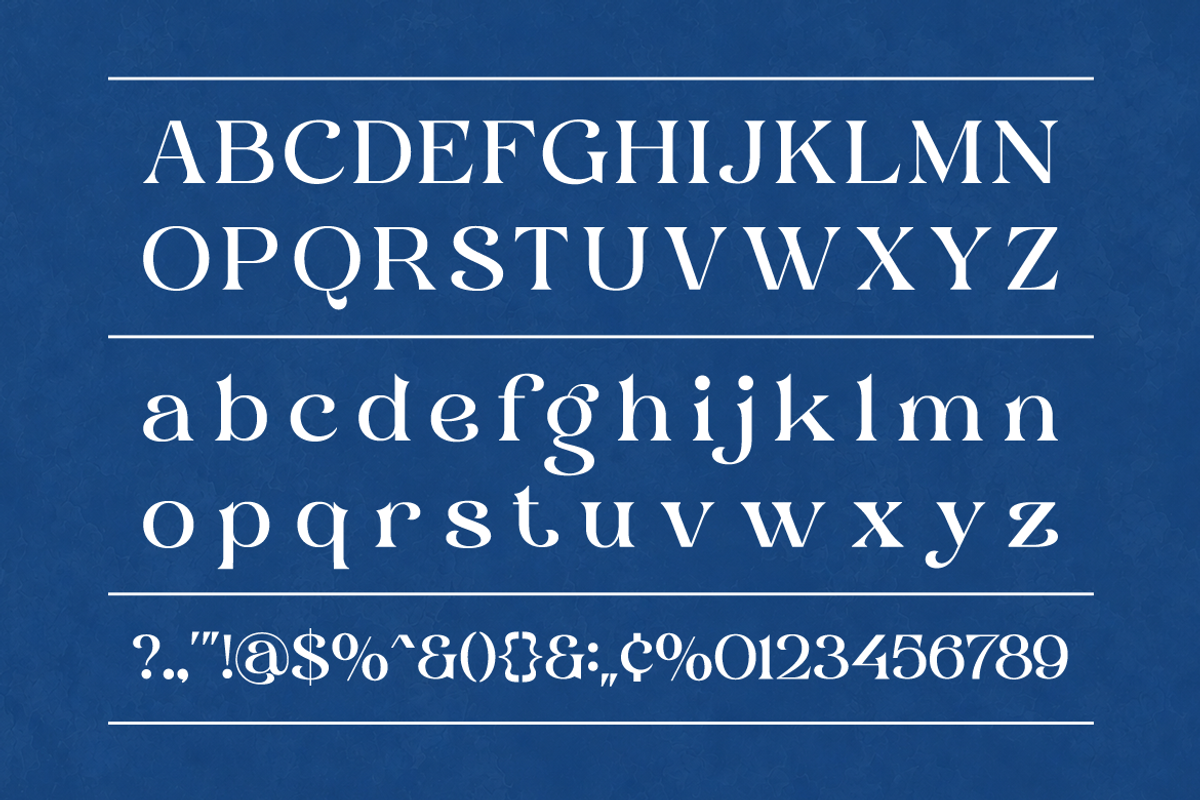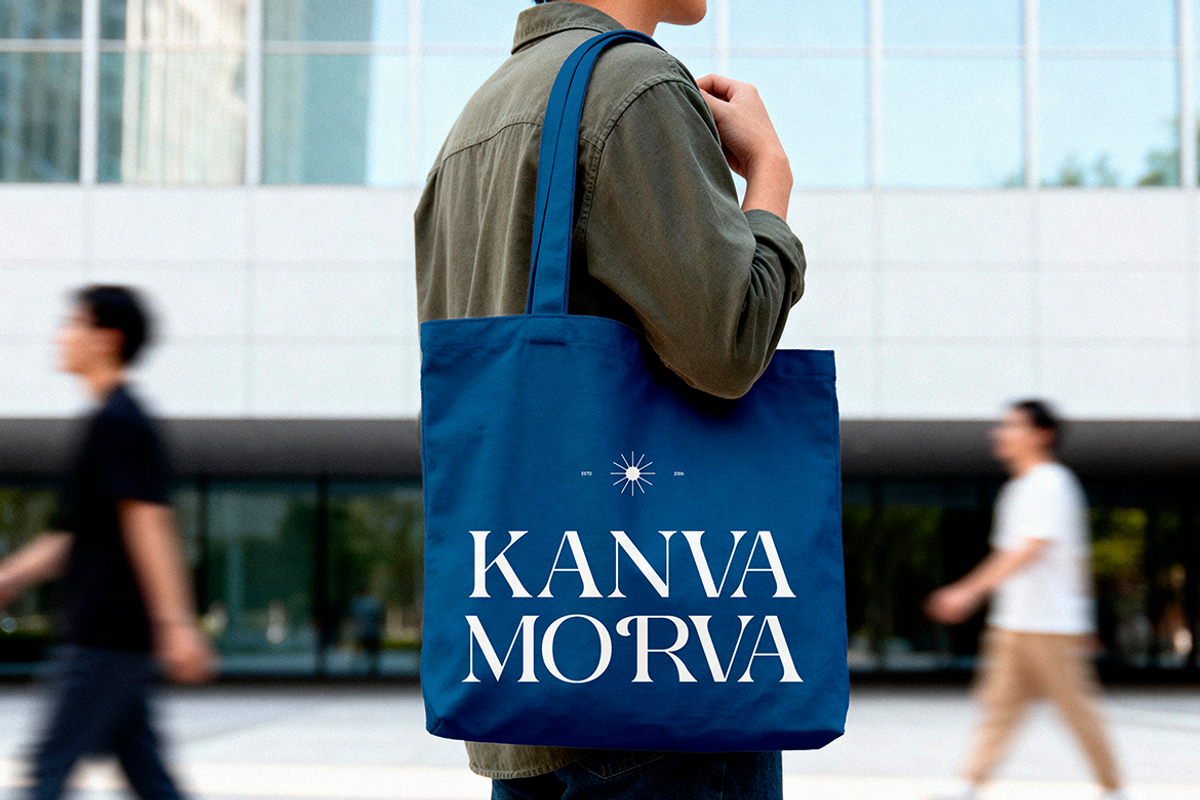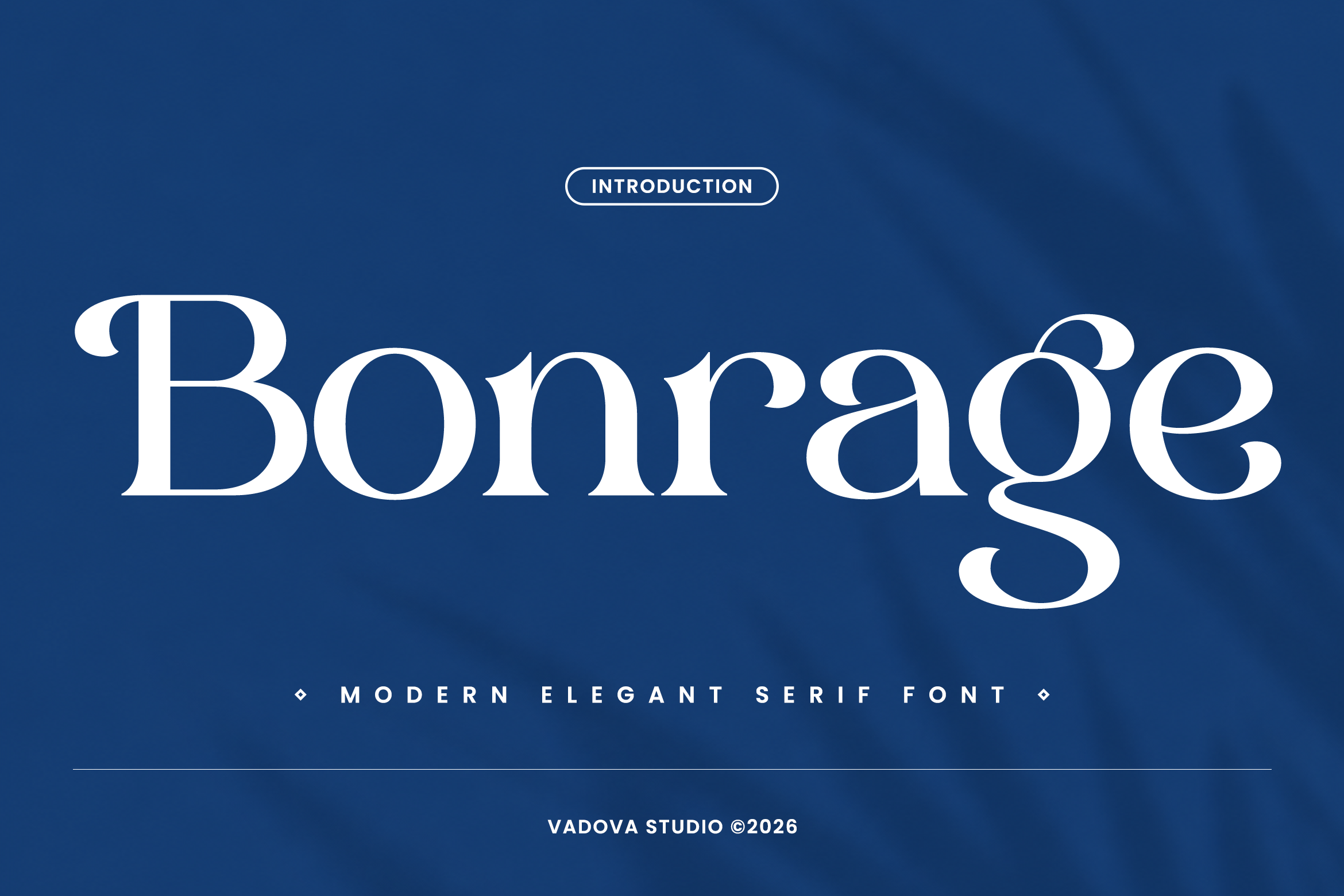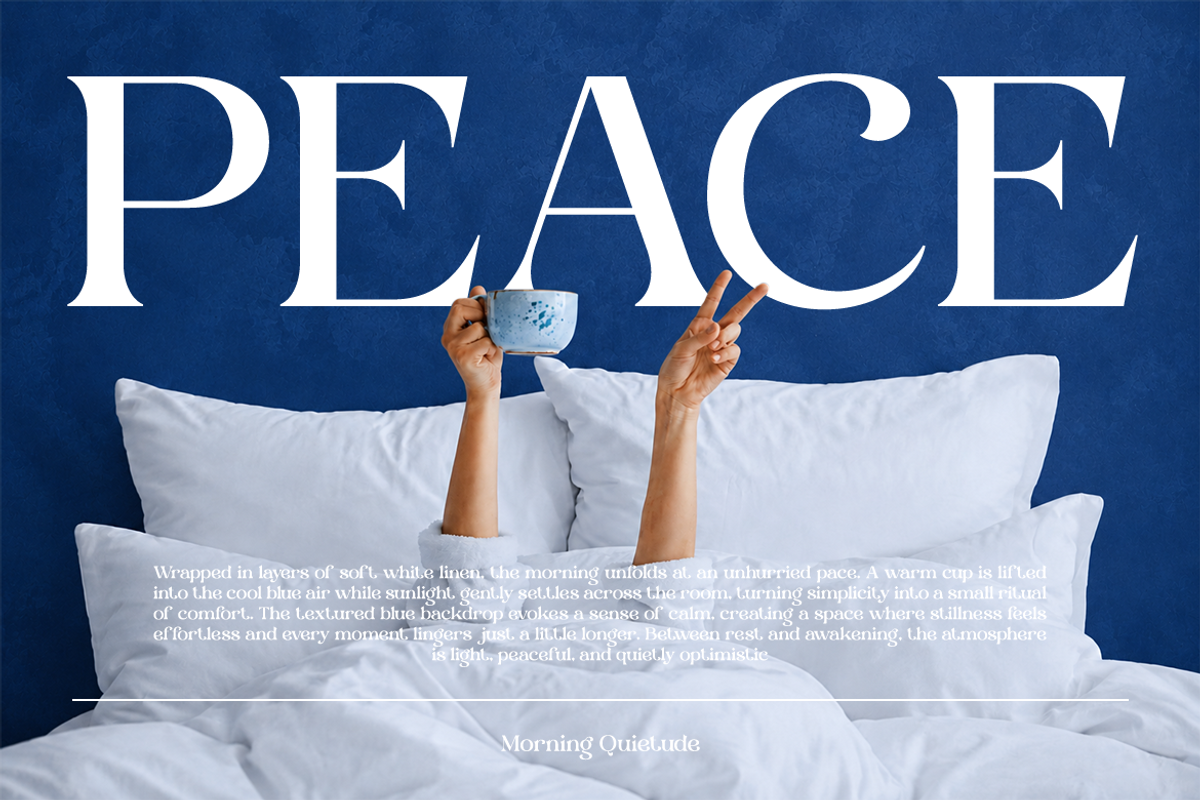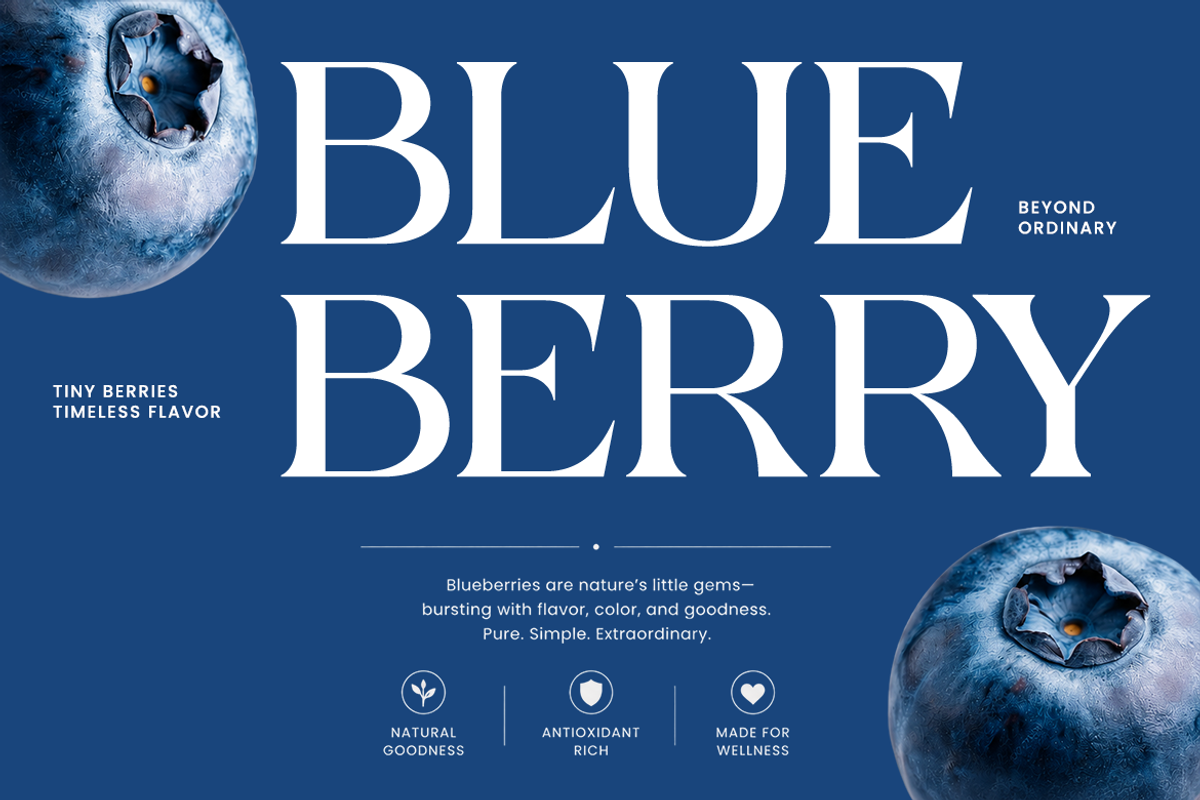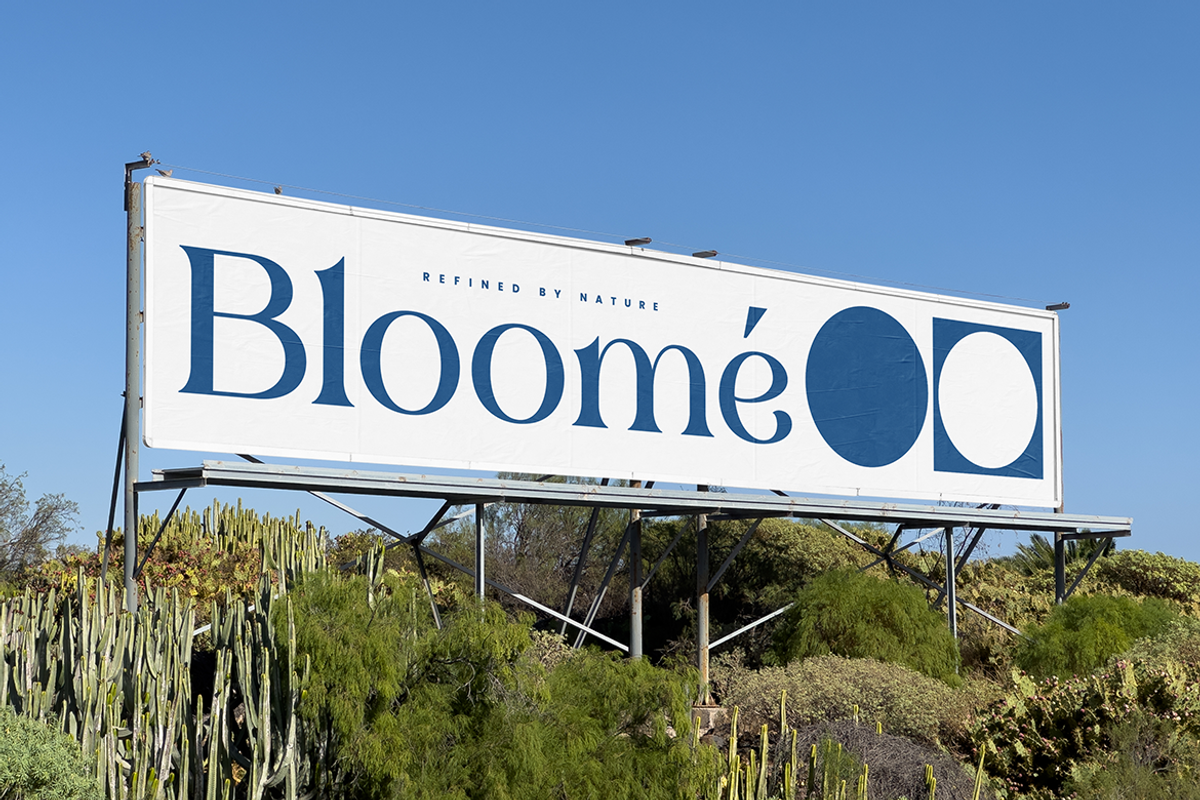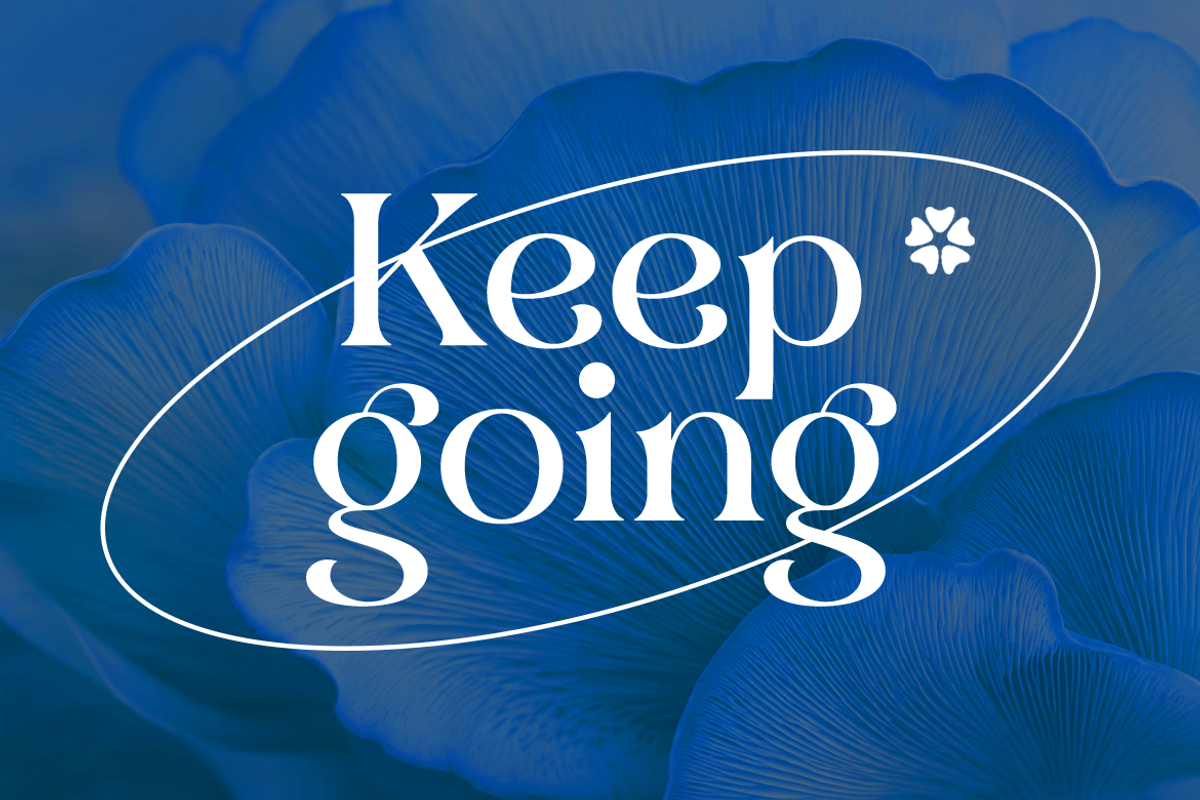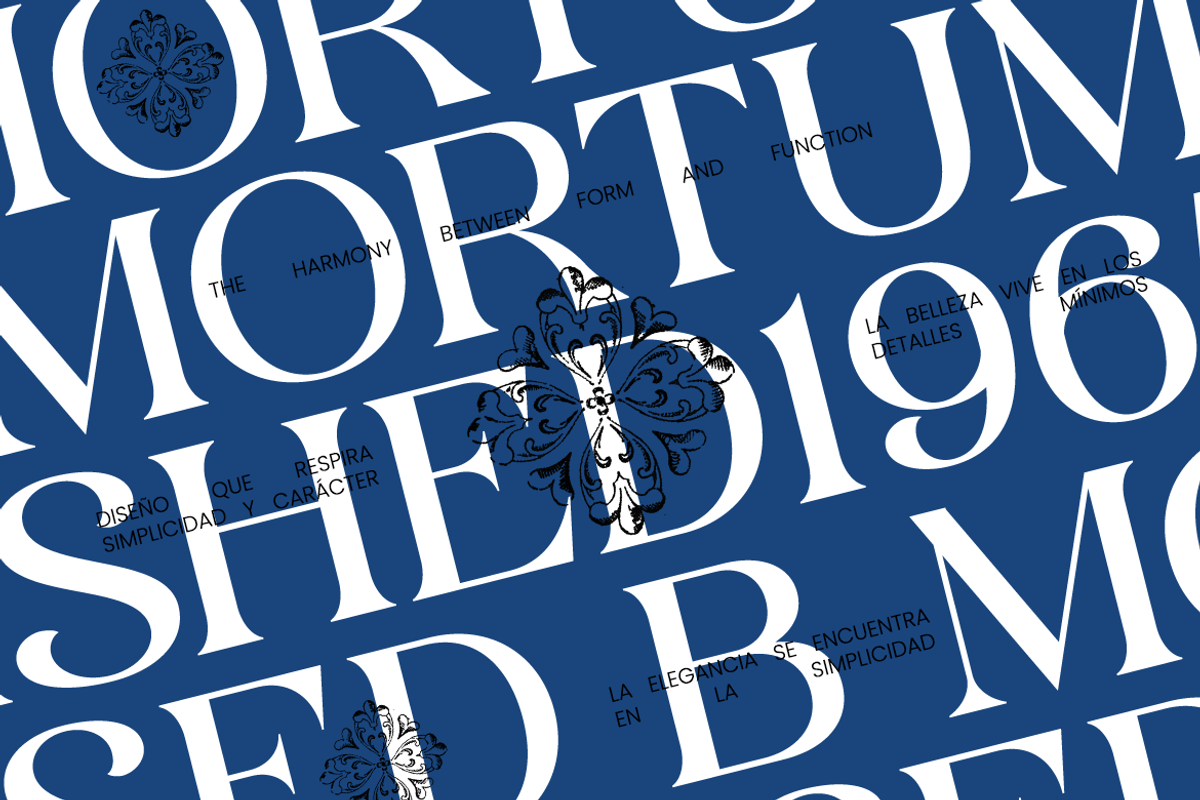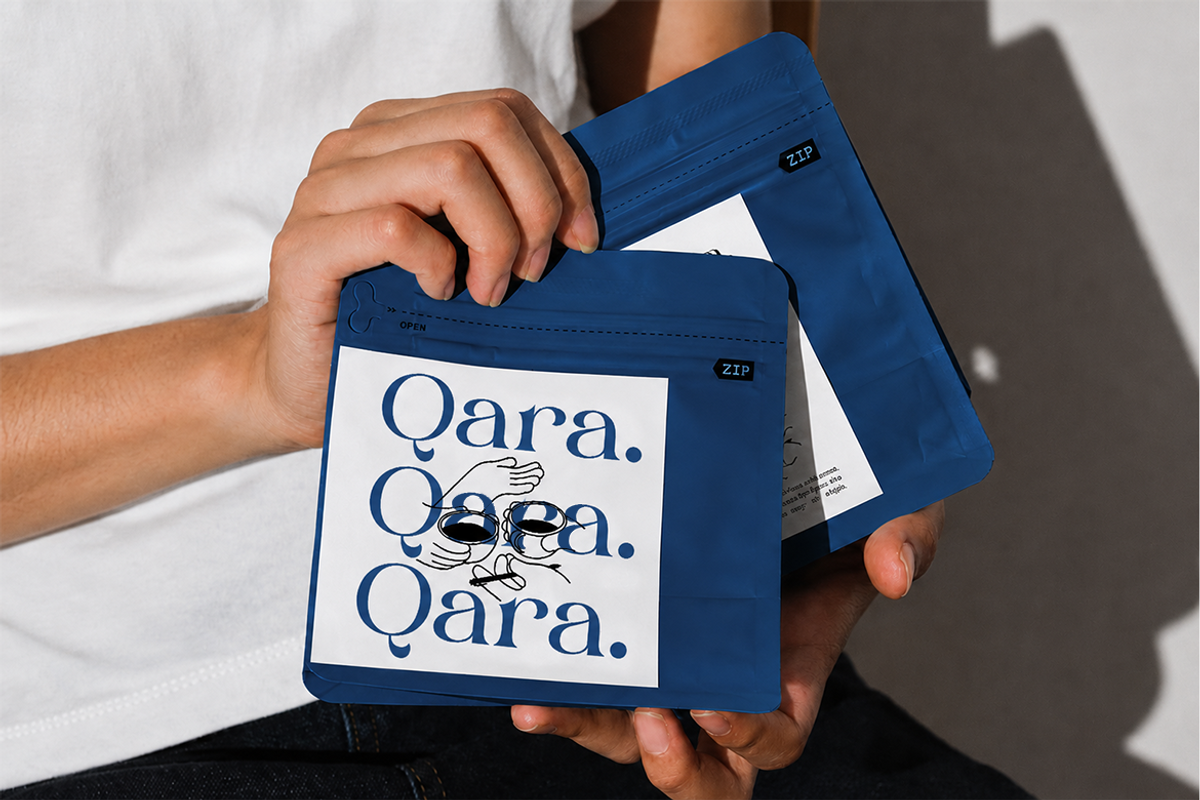
Bonrage Modern Elegant Serif Font
Bonrage Modern Elegant Serif Font is a refined display serif typeface that blends contemporary sophistication with timeless editorial elegance. The design features crisp high-contrast strokes, sculpted wedge serifs, and gracefully balanced proportions that create a luxurious typographic presence without sacrificing readability. Distinctive letterforms such as the expressive Q, elegant g, and refined terminals give the typeface a memorable personality suited for premium visual identities. The font includes uppercase and lowercase characters, numerals, punctuation, and ligatures, offering flexibility for professional design projects while maintaining a polished, high-end aesthetic across print and digital media
Its carefully crafted spacing, smooth stroke transitions, and harmonious character proportions provide excellent performance in headlines, logos, editorial layouts, and luxury branding. Designed for sophisticated branding and editorial work, Bonrage brings elegance, confidence, and visual clarity to fashion campaigns, premium packaging, magazine covers, boutique identities, beauty products, hospitality branding, and luxury marketing materials.
Modern serif design with refined high-contrast letterforms
Gracefully balanced proportions for an elegant visual presence
Soft curved terminals with subtle transitional stroke contrast
Delicate serif details that enhance luxury and readability
Carefully crafted spacing for impactful headlines and sophisticated branding
Luxury fashion branding and premium apparel collections
Editorial magazines, book covers, and lifestyle publications
Beauty, skincare, perfume, and cosmetic packaging design
Wedding invitations, event stationery, and fine art prints
Boutique logos, luxury hospitality branding, and jewelry identities
Screen-optimized kerning for responsive web design
Supports numerals, punctuation, and extensive symbol set